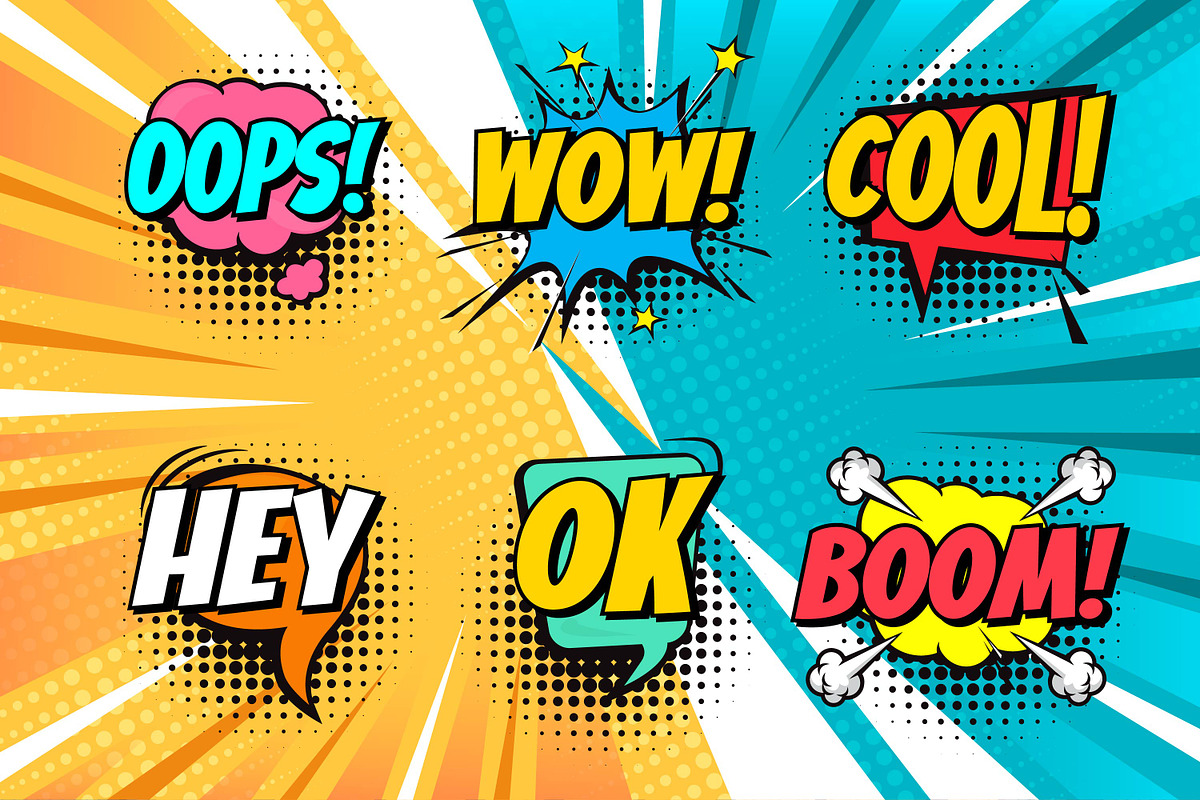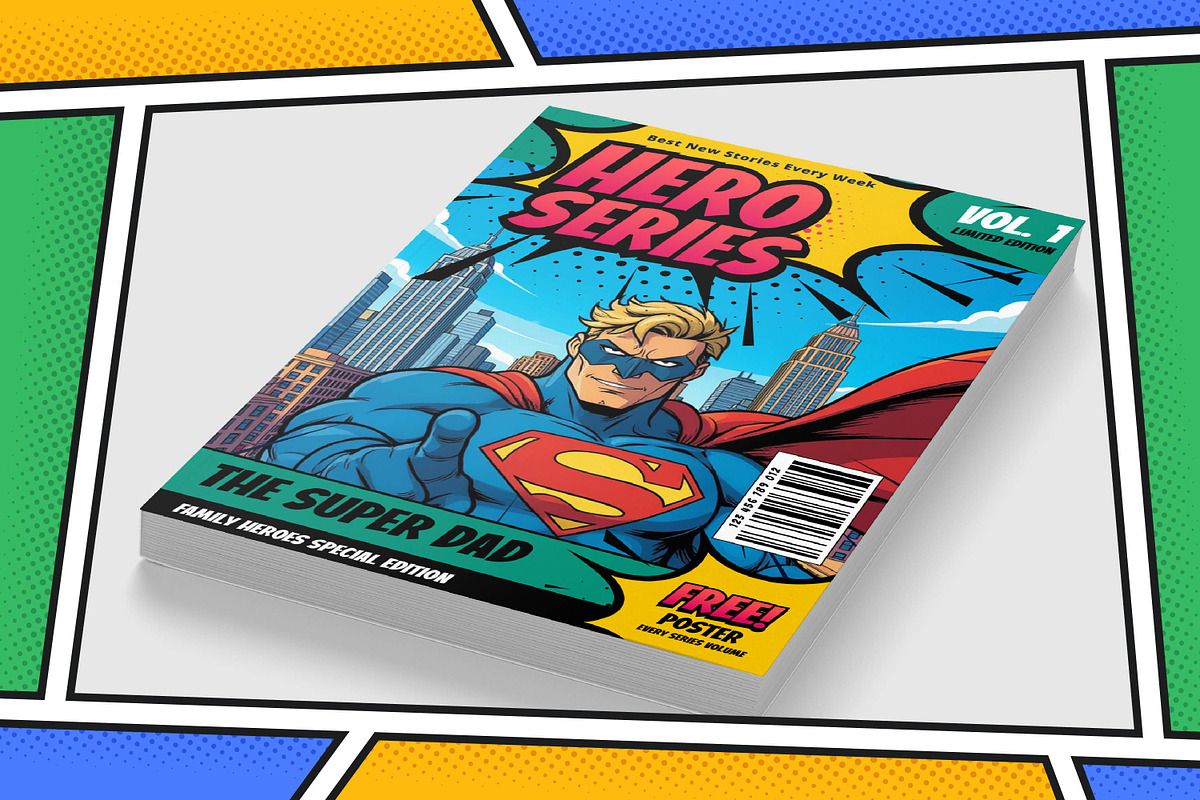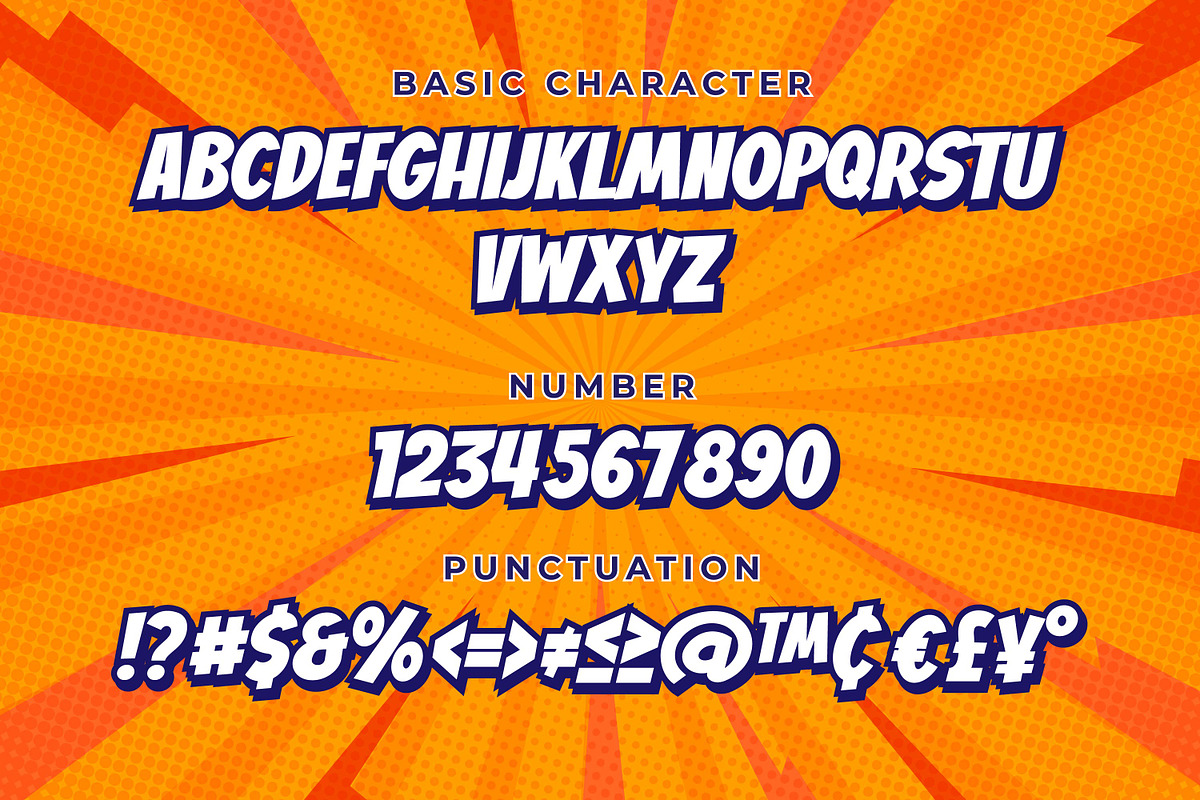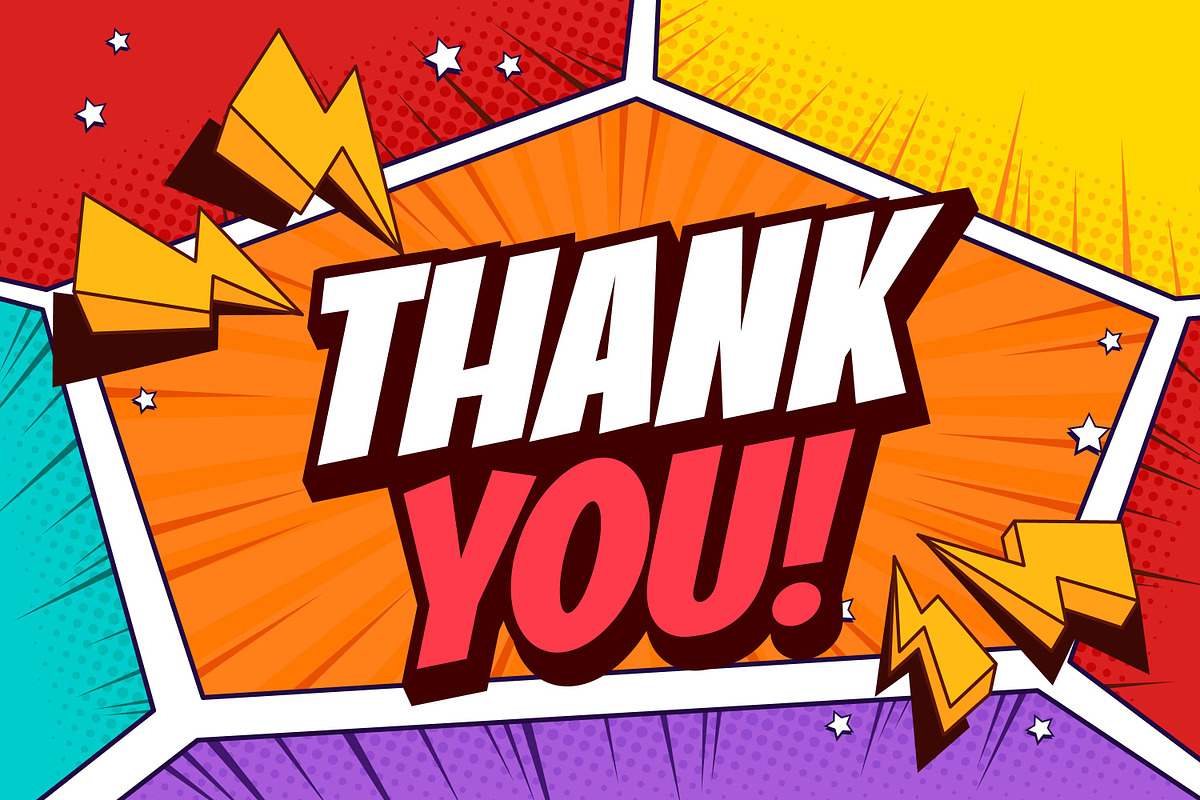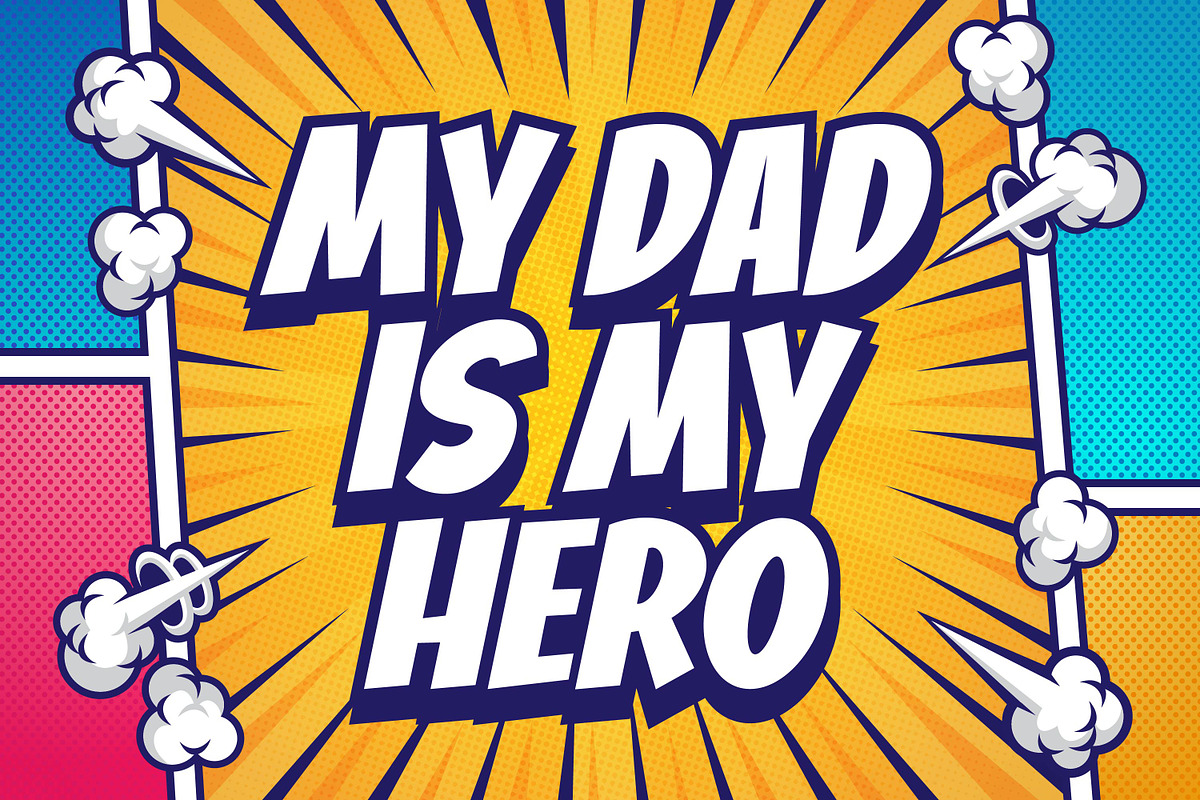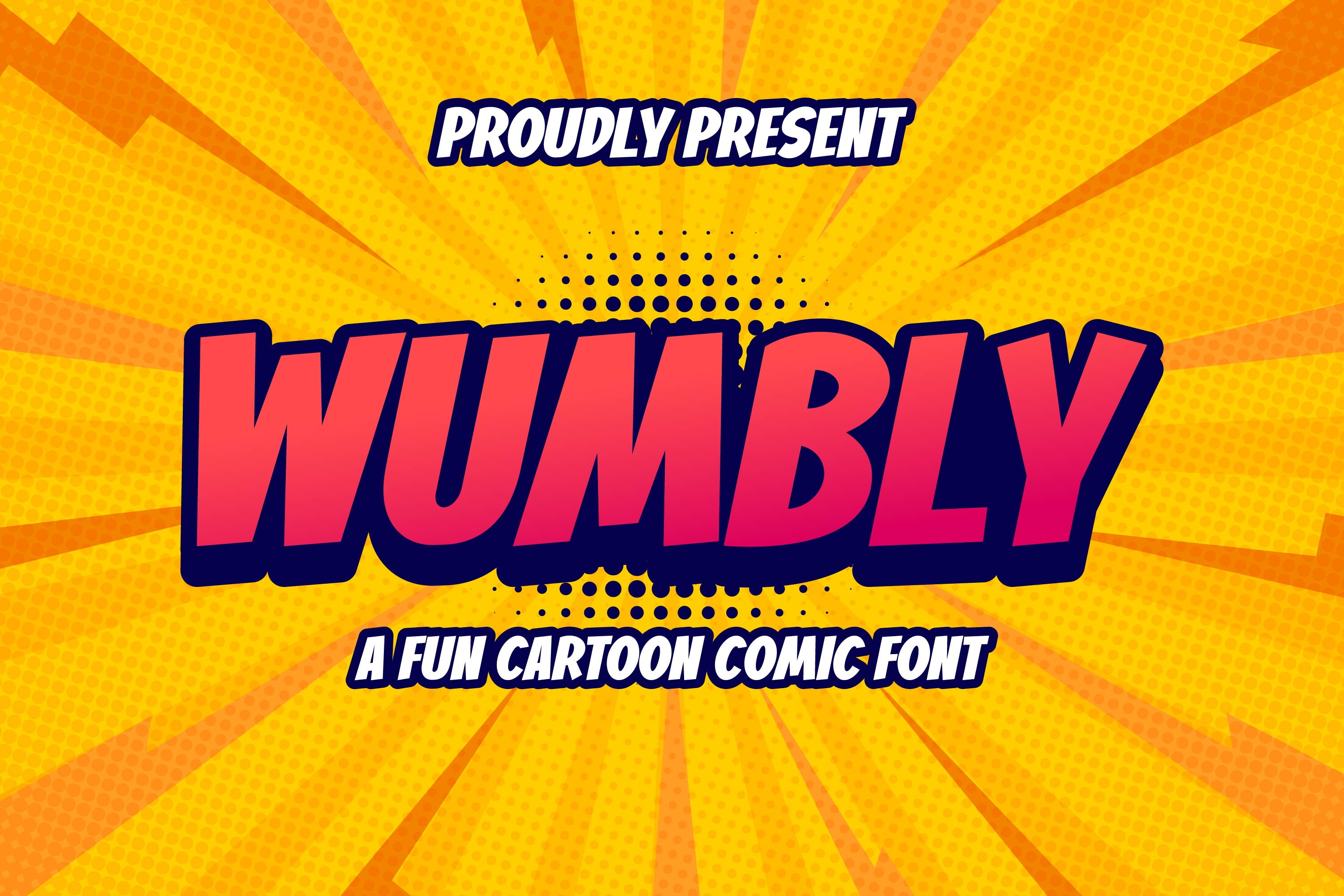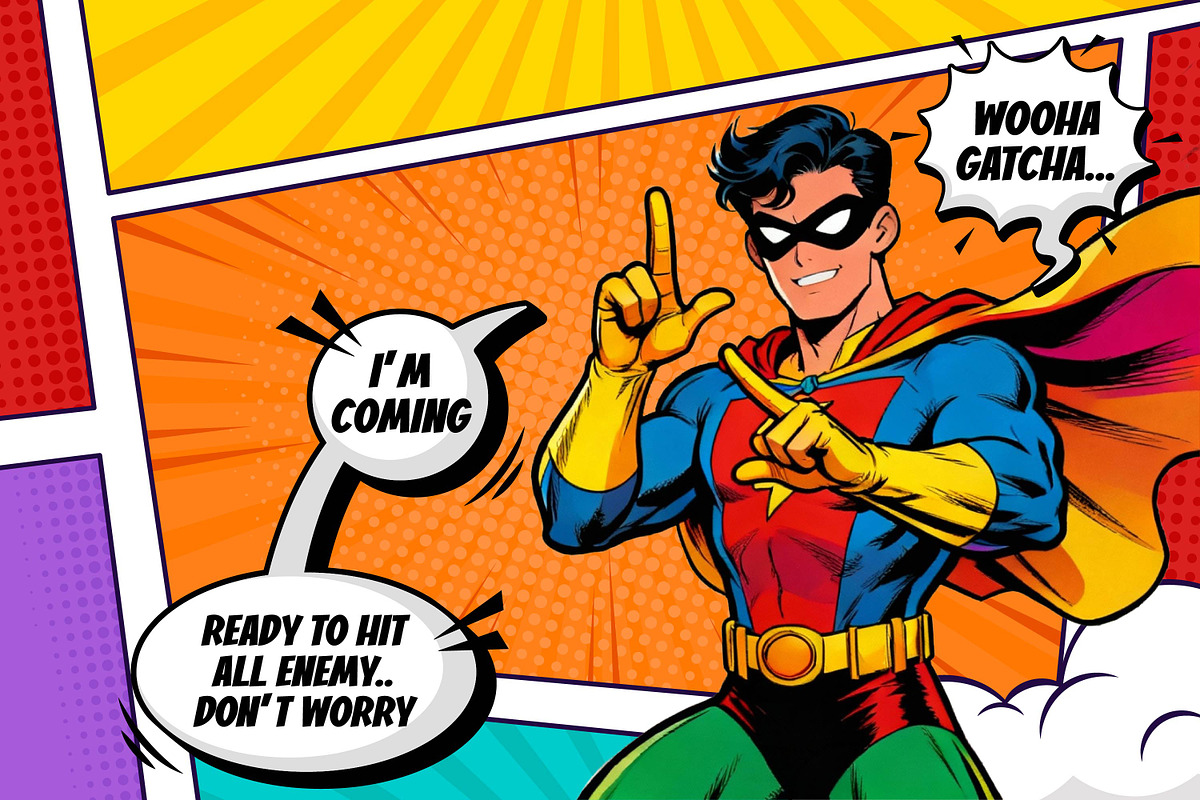
Wumbly - Comic Cartoon Font
Wumbly is a cute comic cartoon font that’s bursting with fun and personality. Its rounded shapes and joyful rhythm make it perfect for children’s projects, comics, games, or anything that needs a playful and animated look.